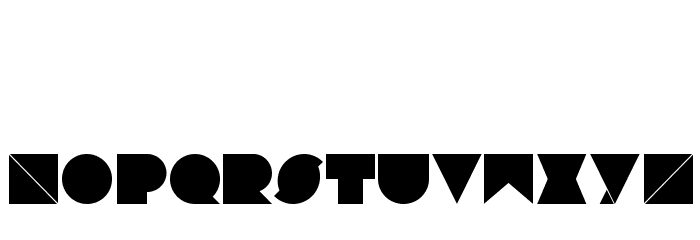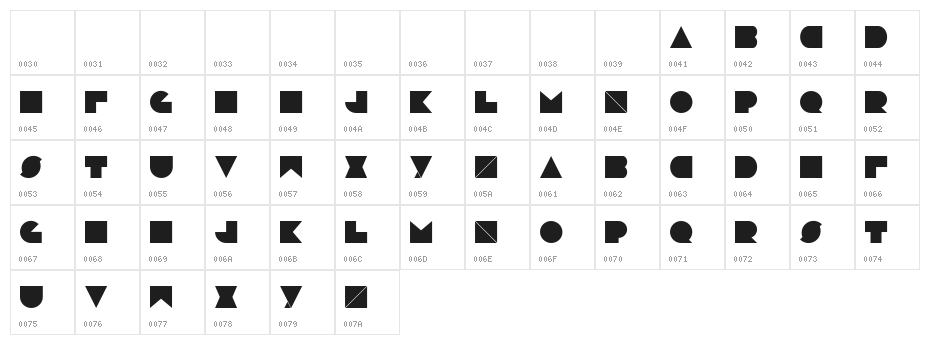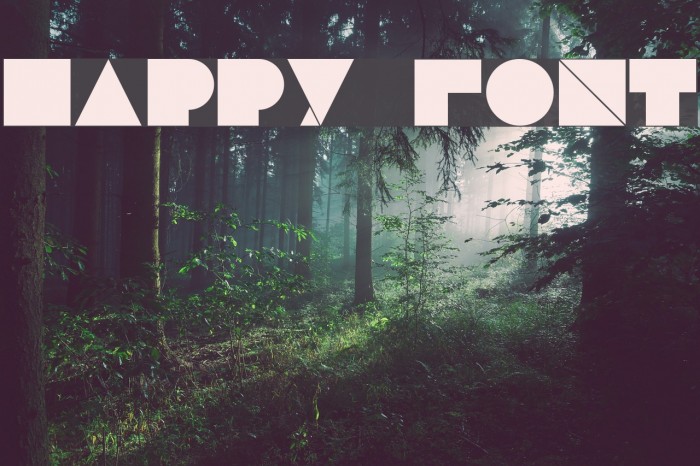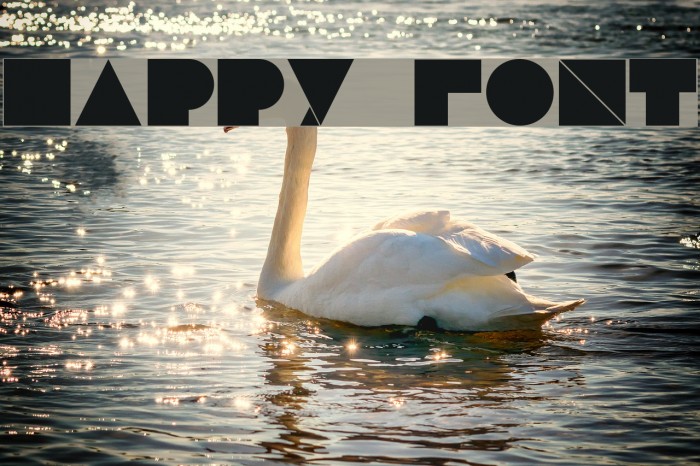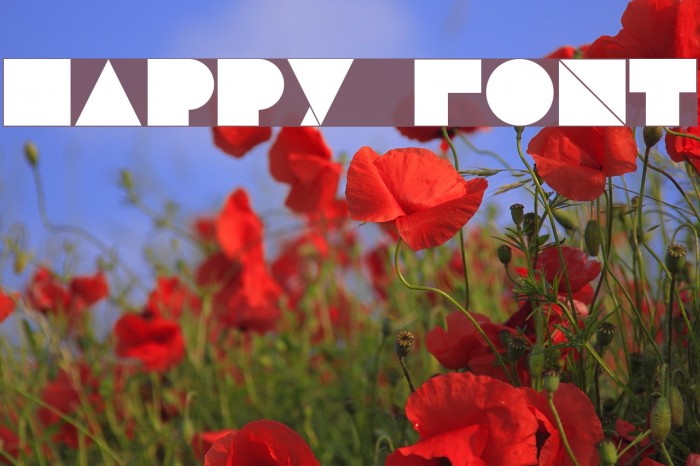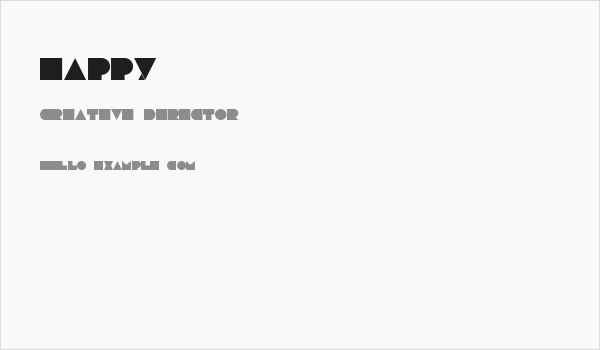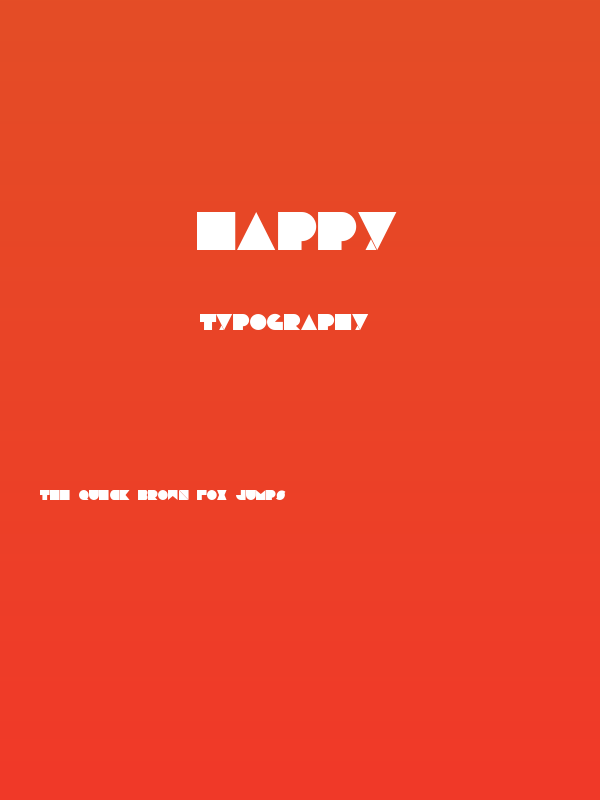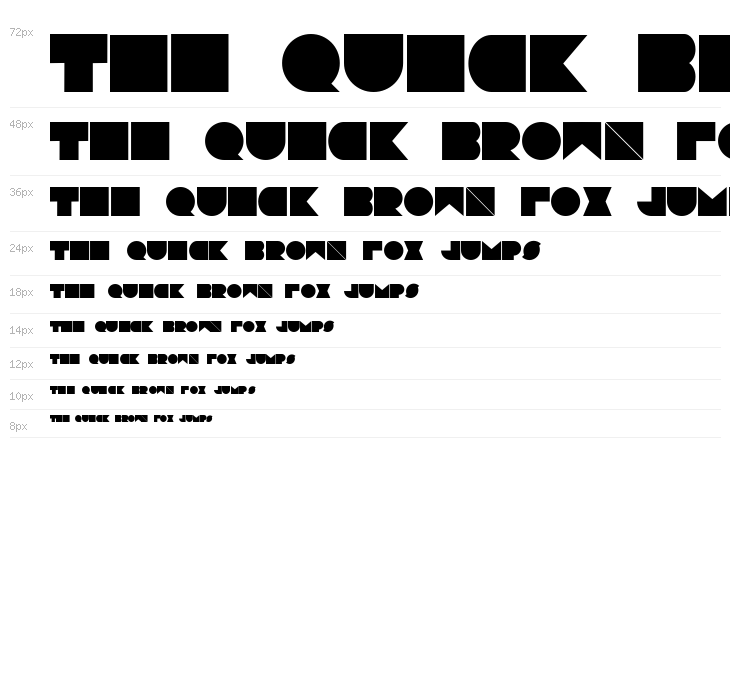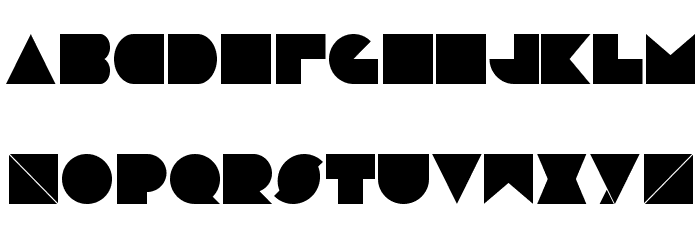
Happy Font
Happy Description
This font features a bold and geometric design, characterized by its use of solid shapes and sharp angles. Each letter is constructed from a combination of triangles, circles, and rectangles, creating a striking and modern appearance. The uppercase and lowercase letters maintain a consistent style, emphasizing the geometric theme. The numbers and special characters follow the same design principles, ensuring uniformity across all glyphs. This font's unique style makes it ideal for projects that require a bold and eye-catching typeface.
| Proposed Projects | Ideal for modern branding, poster design, and digital artwork. |